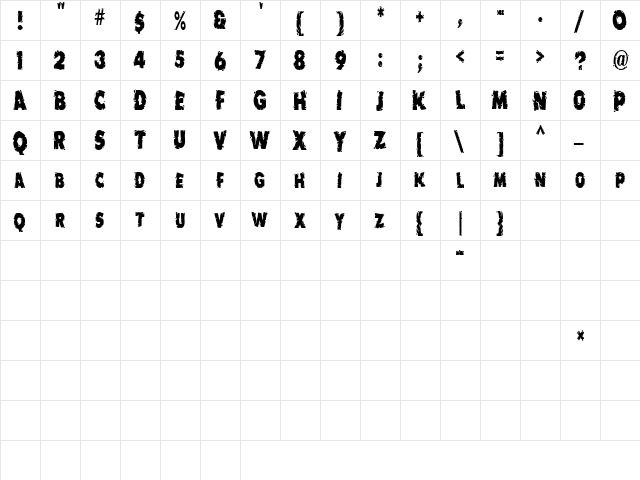
EarthshakerCondensed Regular
Design Context for EarthshakerCondensed Typeface
EarthshakerCondensed is a composed and adaptable typeface that performs quietly and consistently across a wide range of design contexts. The condensed width makes it efficient for tight spaces without sacrificing legibility.